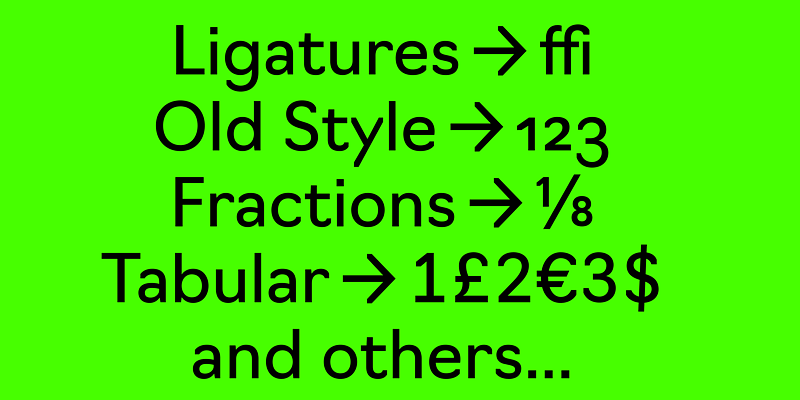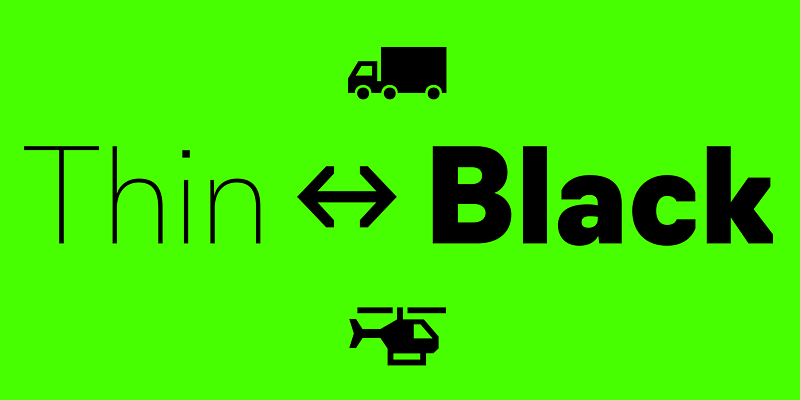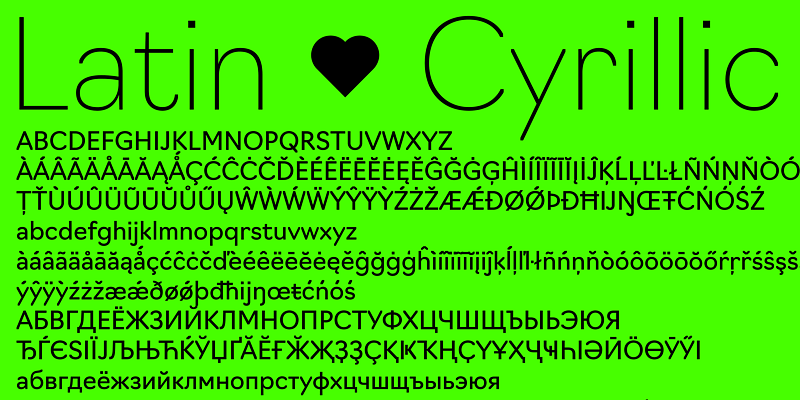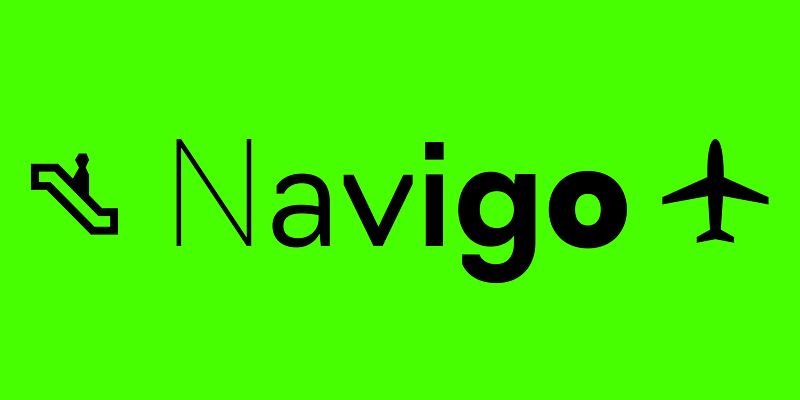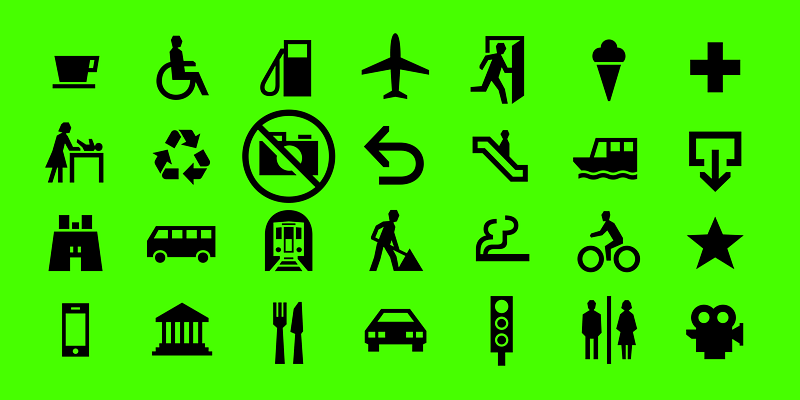
Navigo was originally designed for the way-finding system and visual identity of the Moscow City District. A geometric sans with low contrast, its characters are of contemporary proportions and a large code page is provided. The Navigo case has extended Latin and Cyrillic, tabulated, majuscule and minuscule figures, fractions and navigational pictograms. It is suitable for both text and display typesettings.